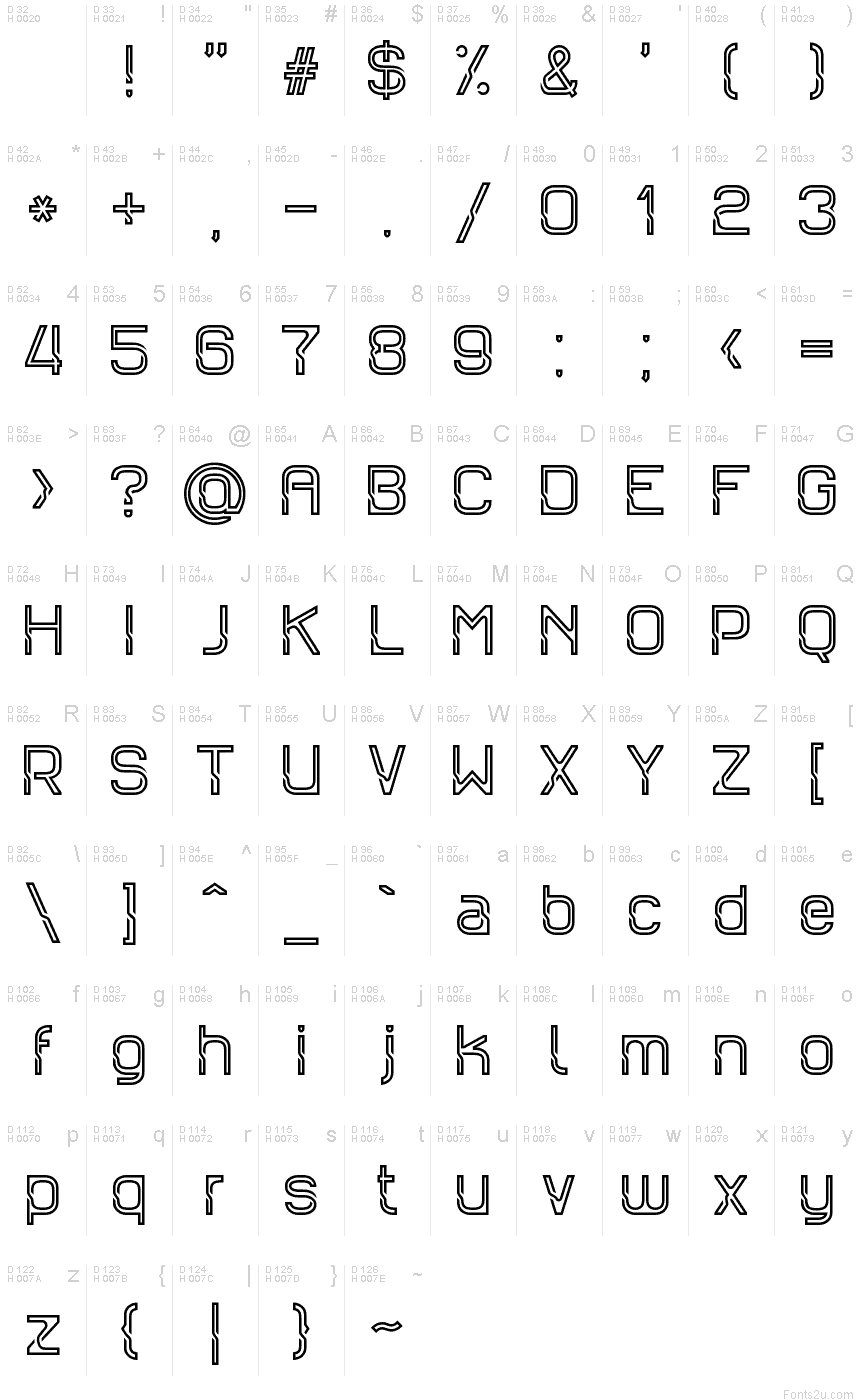
Sportrop Regular
Sportrop by gluk is a free outlined geometric sans serif built from broad curves, squared joins, and doubled strokes reminiscent of tubular lettering on vintage sports uniforms and arena signs. The rounded construction feels sporty, mechanical, and distinctly retro.
Designers working in athletic and youth markets can use its streamlined contours for team branding, event posters, and merchandise with a light science-fiction edge. The same tubular outline also suits electronic music album covers and arcade-themed digital graphics, where the letters can echo track lines, circuitry, or the glowing borders of an old game interface built into scoreboards, grids, and neon scenes.